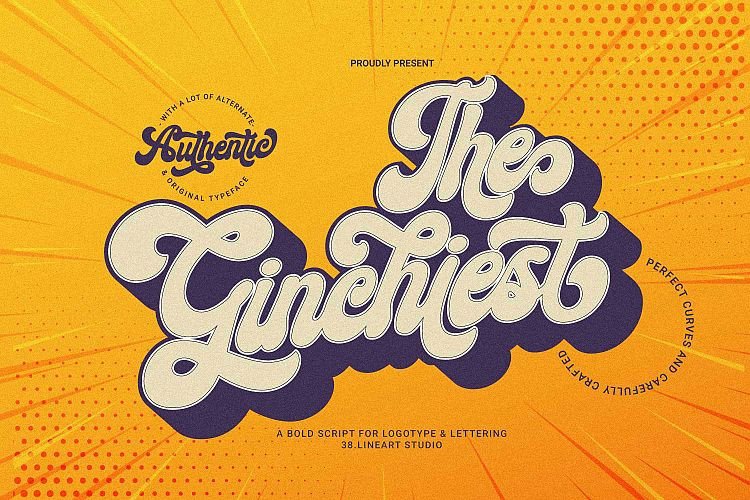
Hello world..!! Introducing The Ginchiest Font. A bold script for logotype & lettering. Inspired by modern retro movement and brush calligraphy. If you are looking for such typeface then it is perfect for your work. The Ginchiest is a bold script font with retro vintage style. This font is perfect for you lettering lovers because we prepared lots of alternates and ligatures that are very eye-catching. And of course we also designate this font for branding; it’s great in logos and logotypes. Bold style make your product look very confident to appear in the public market.
For shadow effect, just relax, we have prepared it for free for you, so you don’t need waste time making shadow effects. For the tutorial how to make shadow effect please see this link: https://youtu.be/Bt_DqE0TQjc